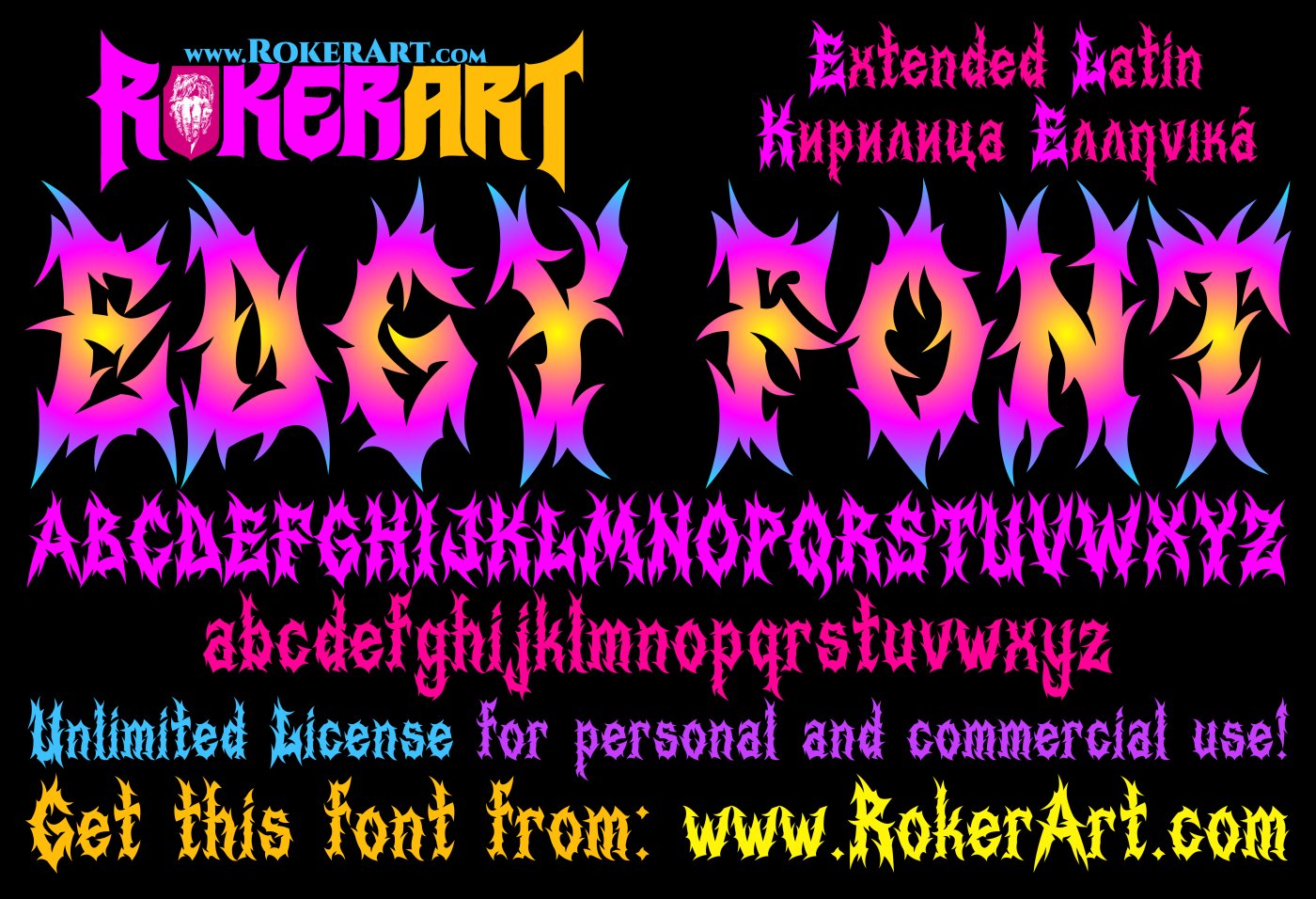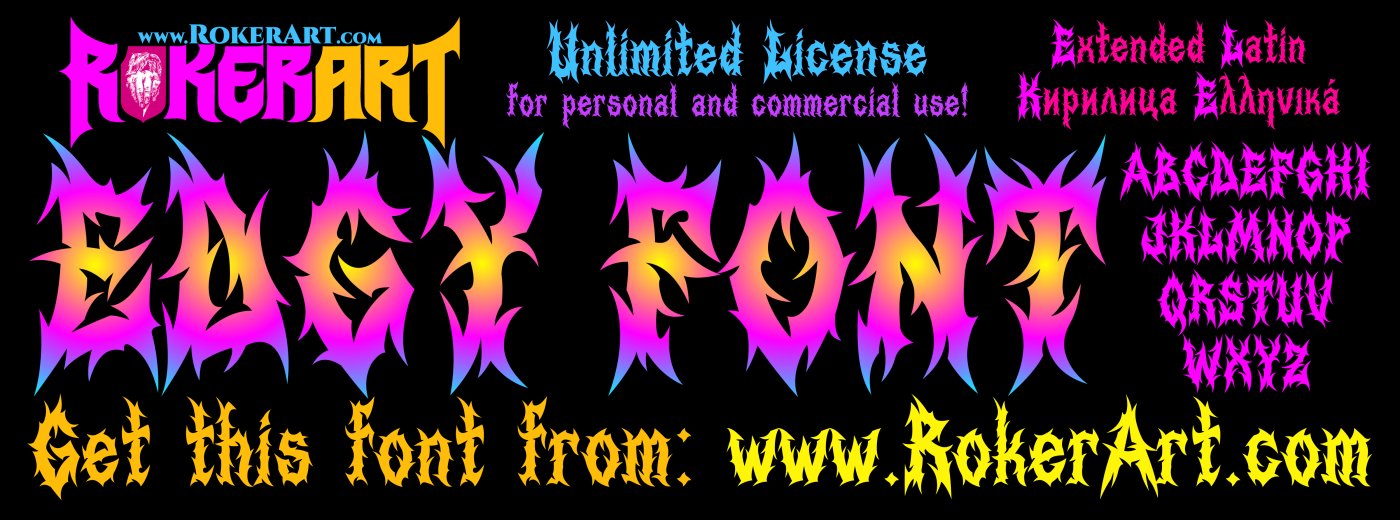
Edgy Font – Death Metal, Black Metal, Heavy Metal, Thrash Metal style font
RokerArt presents: Edgy Font!
Here is a font that is a total embodiment of the metal style! Quickly and easily get your own logo in the style of death metal, black metal, heavy metal, or thrash metal; just write and get a result with perfect detail! The font is optimized and light, rich in details; this font can serve you for any design project. Suitable for your merchandise art, online and printed advertising, video content, or music book. Here you have all the necessary letters, numbers, and symbols to write entire texts. The font contains the extended Latin alphabet and Cyrillic and Greek letters. Use it without having a copyright problem, because here the license is unlimited. A great investment for your future design projects!
Supported Languages:
English, Deutsch, Français, Español, Nederlands, Polski, Norsk, Suomi, Eesti, Svenska, Dansk, Magyar, Čeština, Slovenčina, Română, Português, Italiano, Български, Українська, Беларуская, Ελληνικá, Lietuviu, Latviešu, Türkçe.